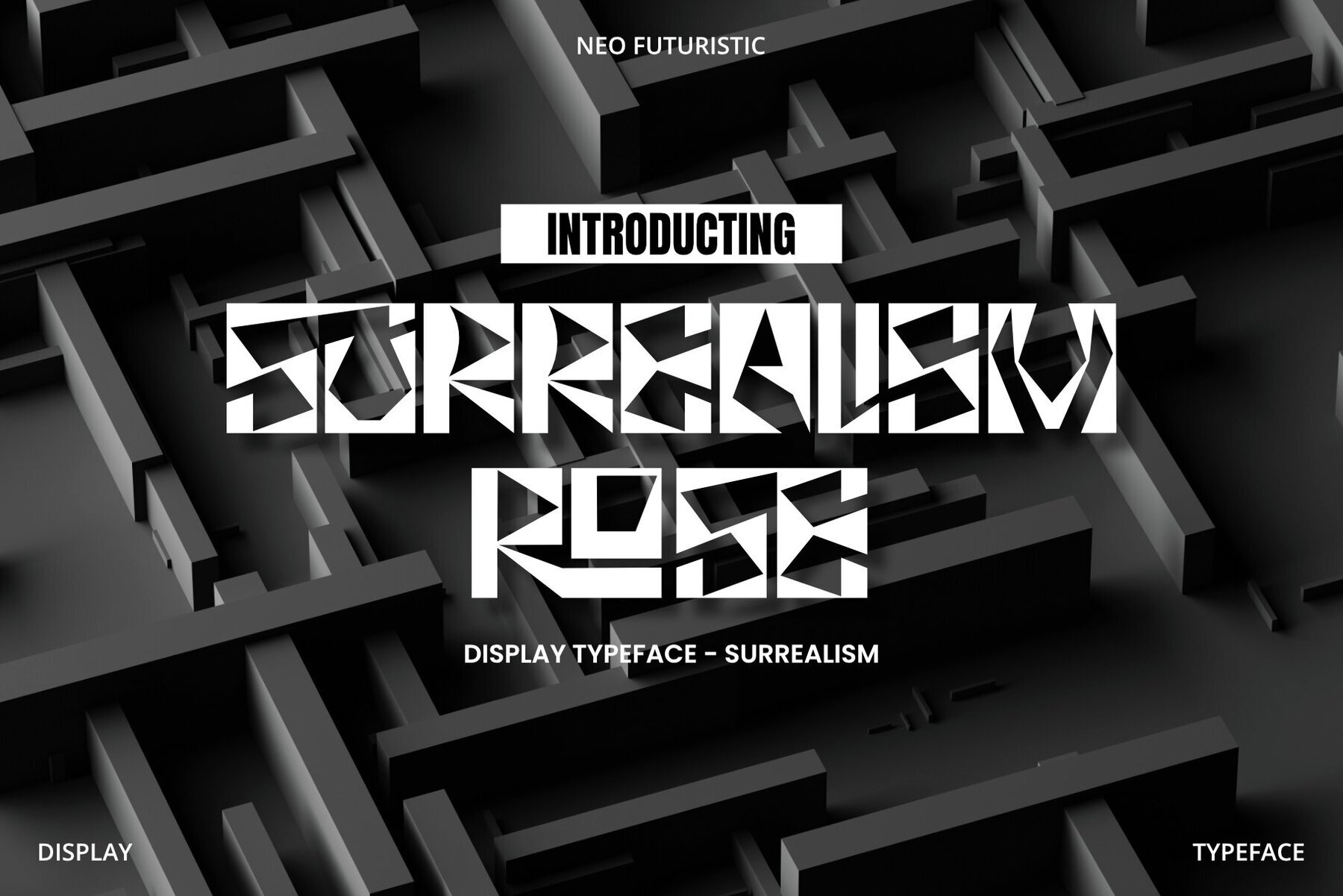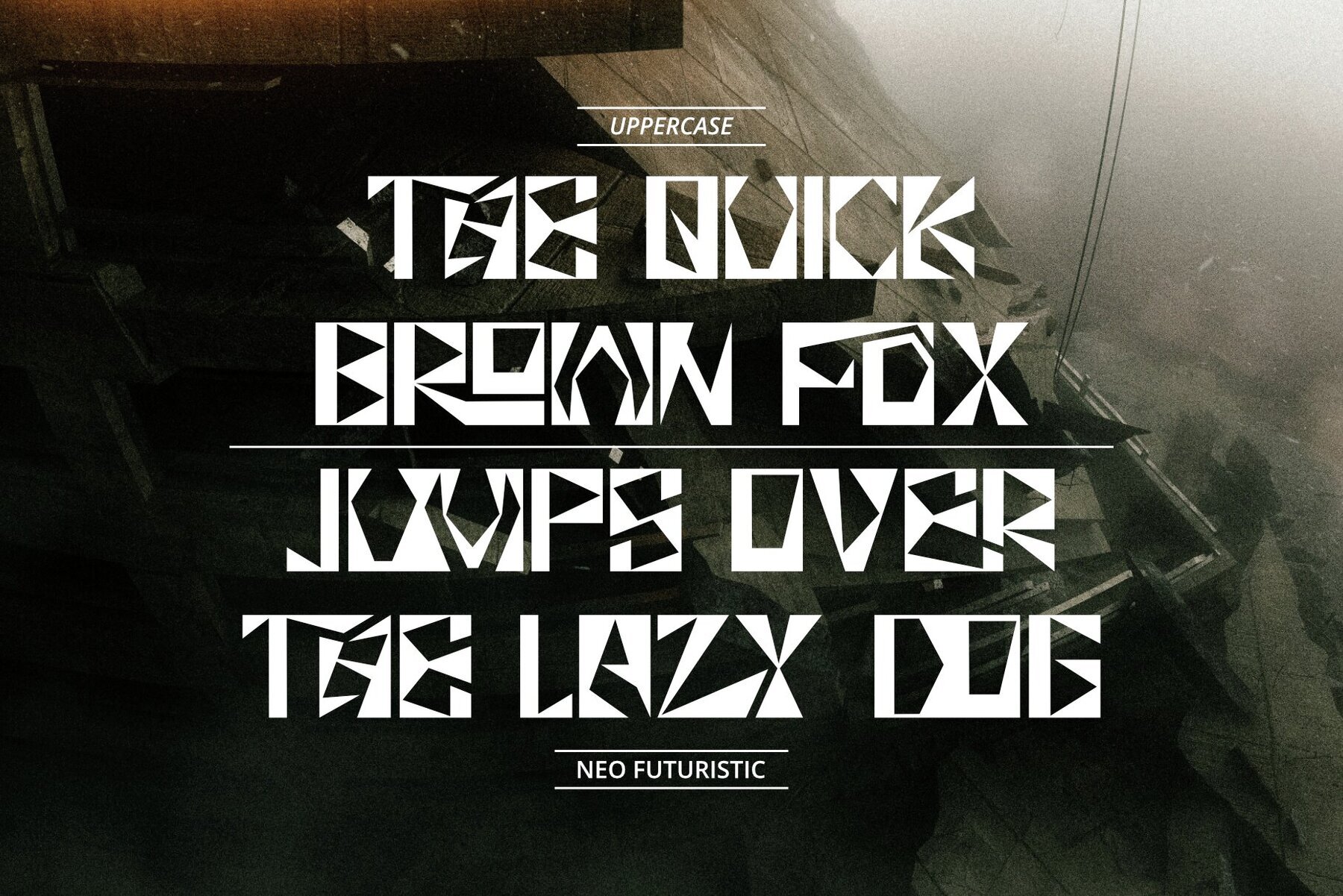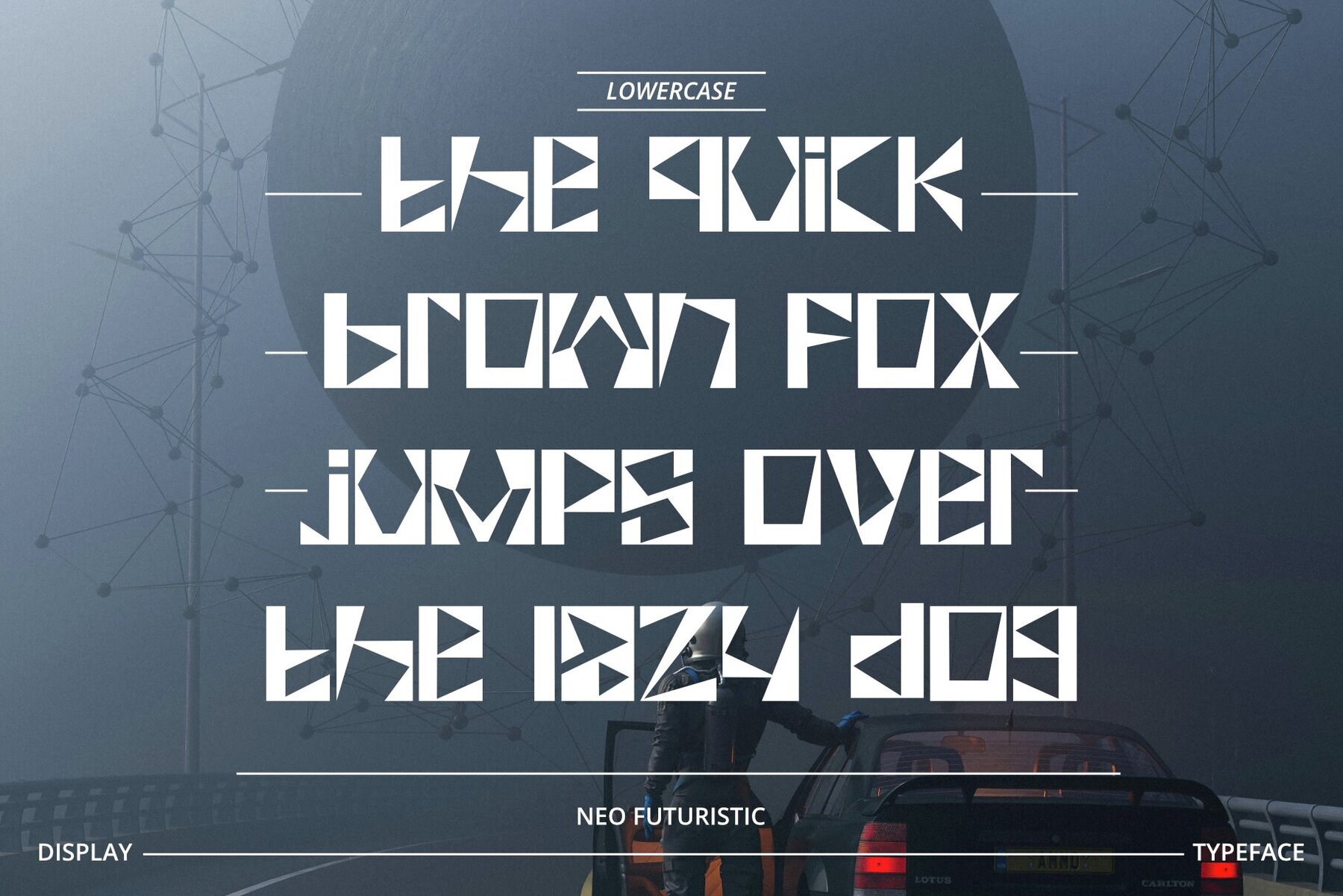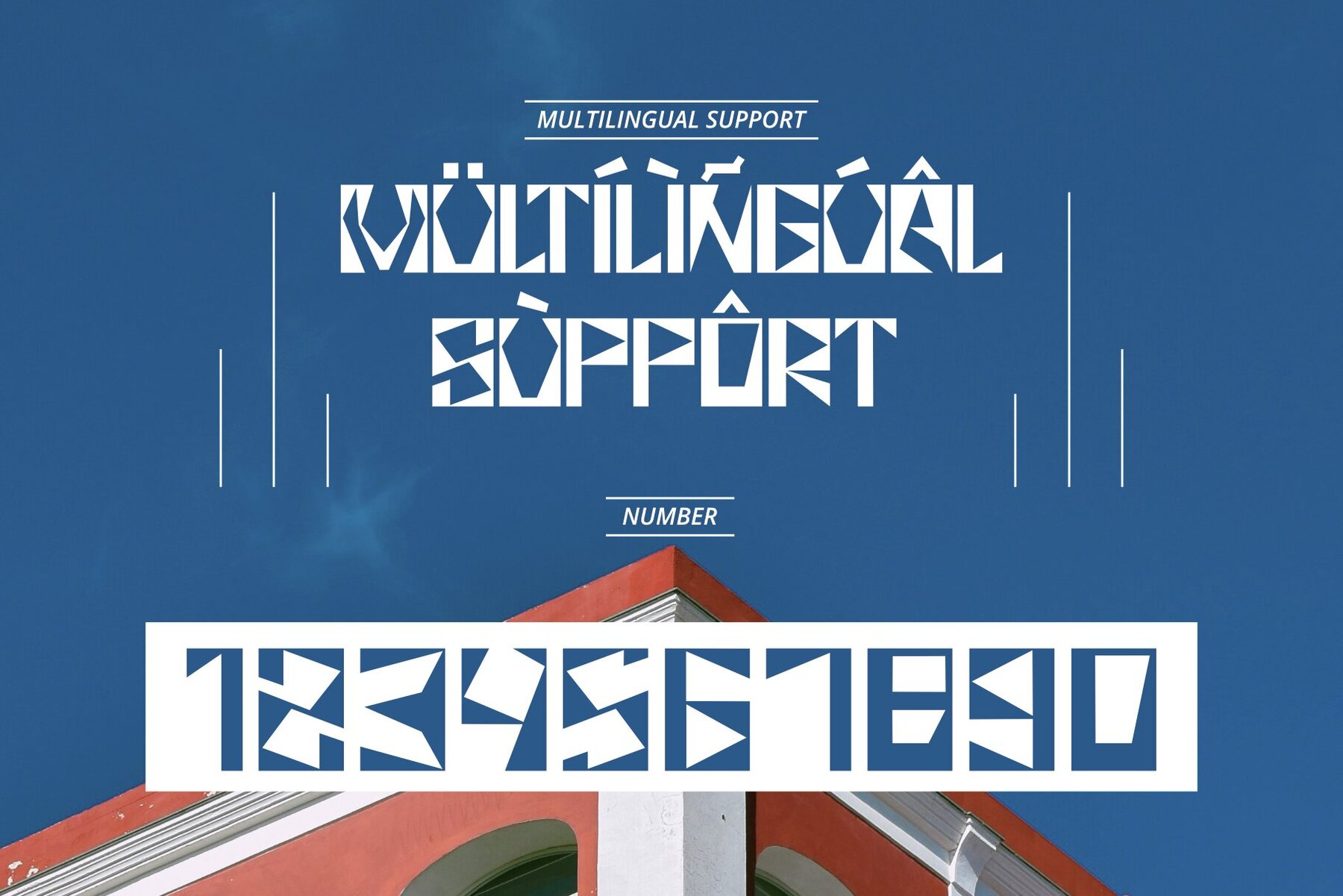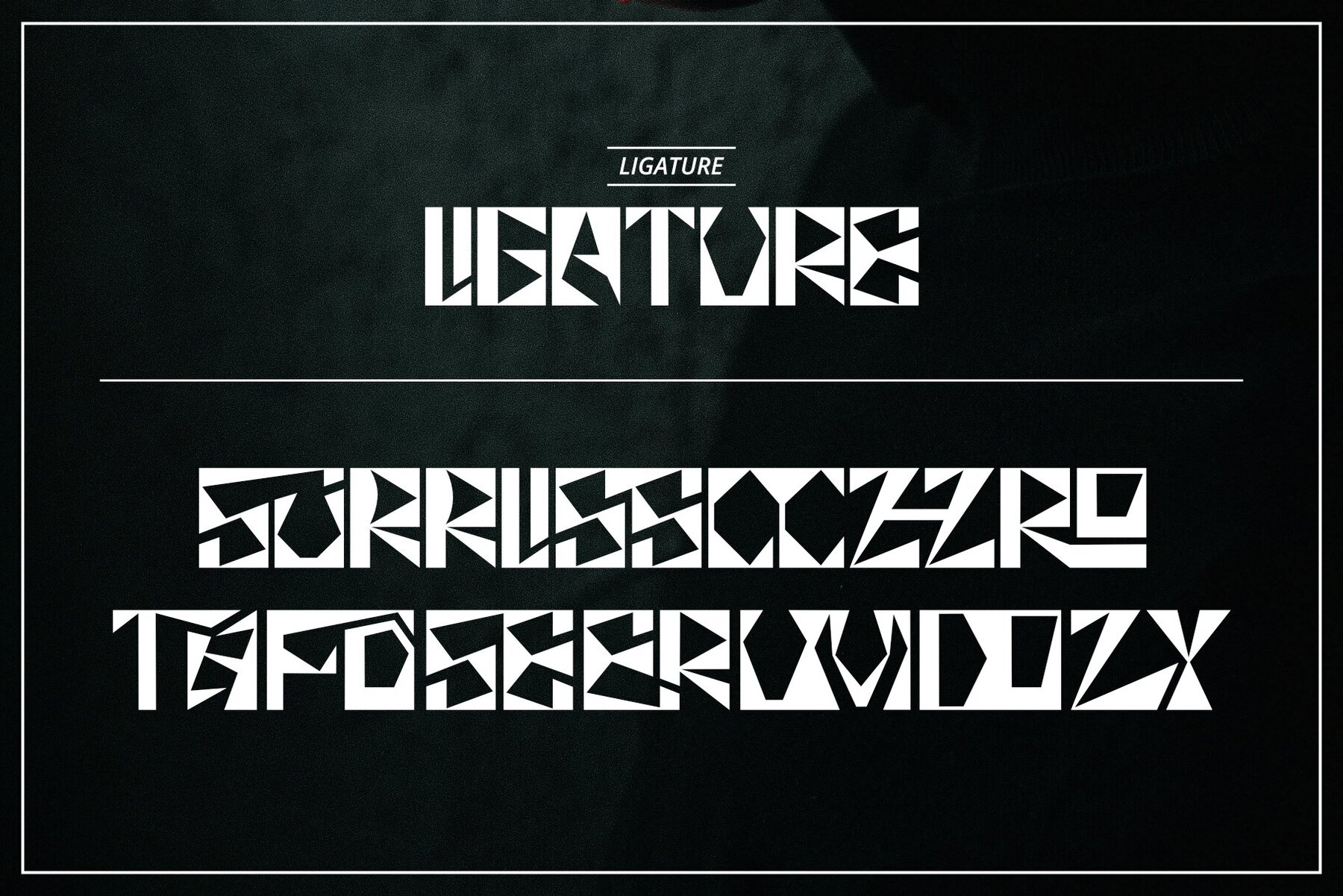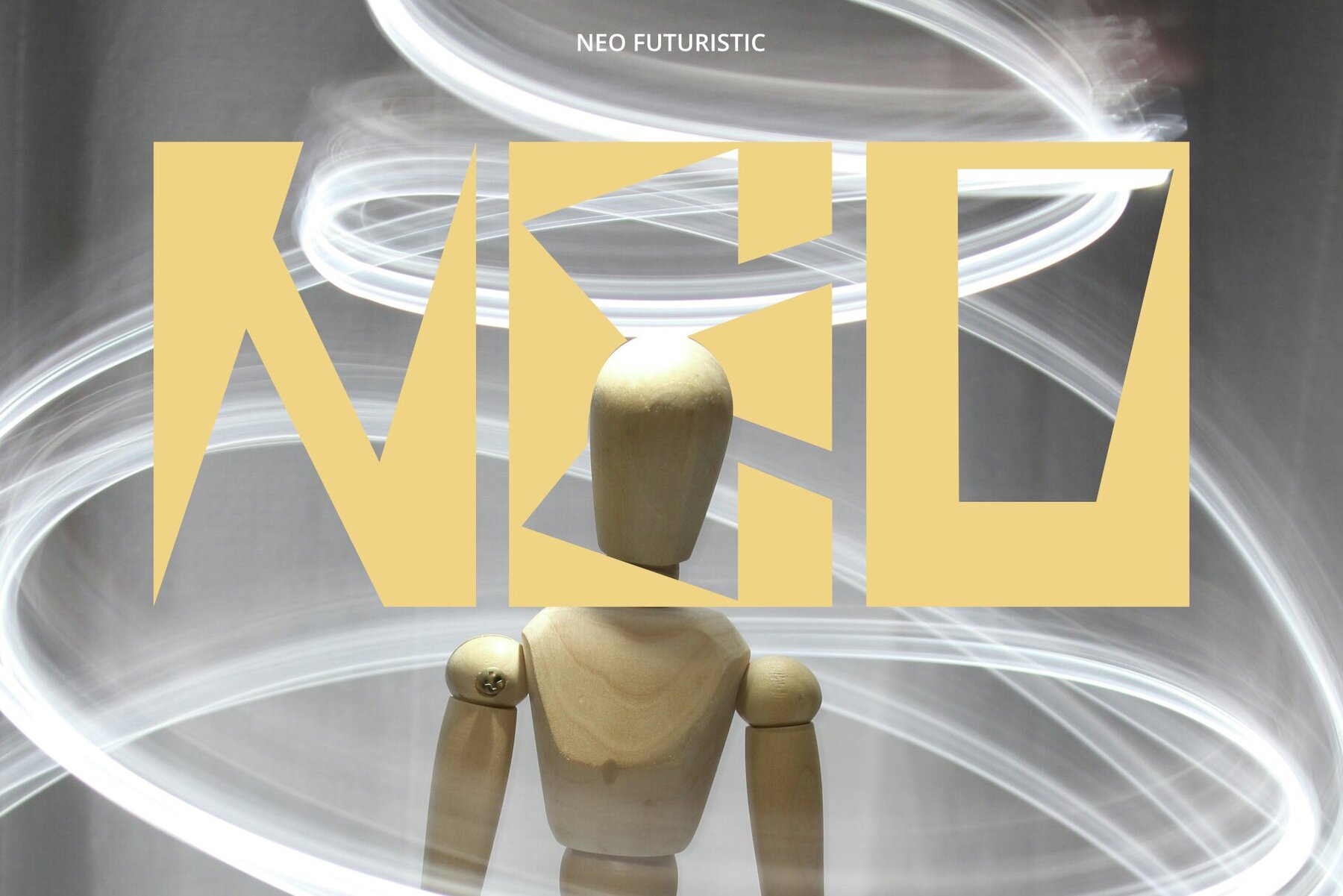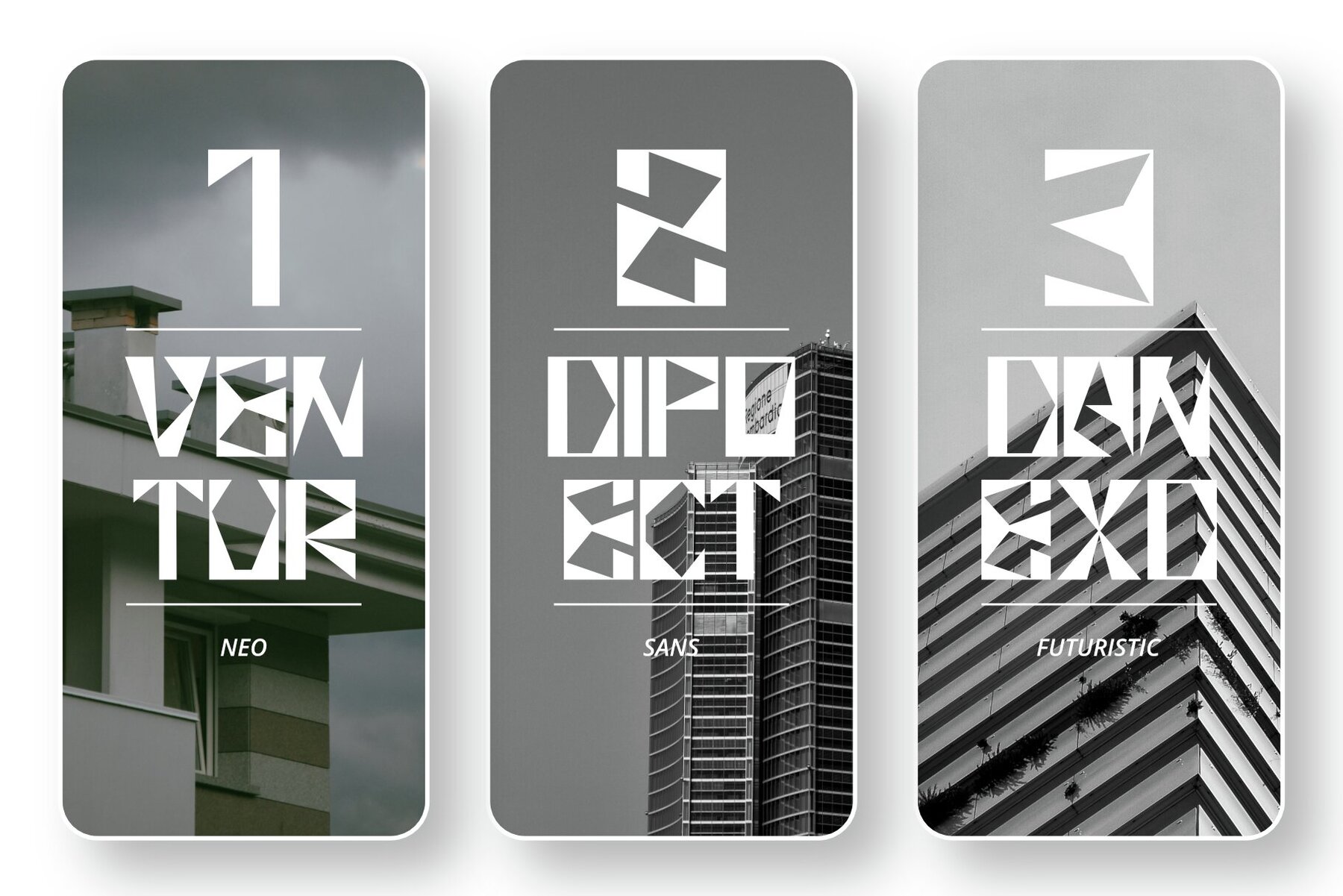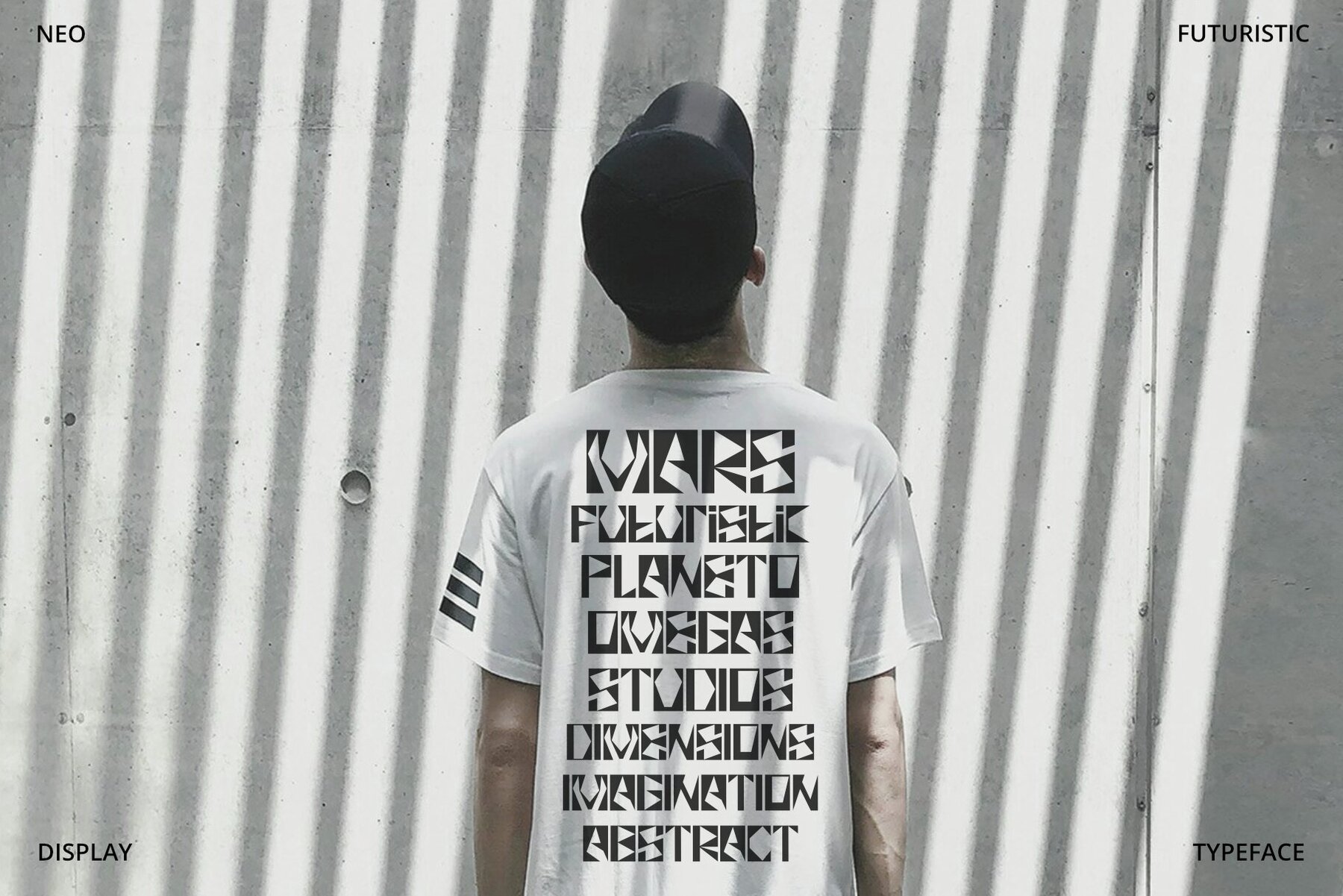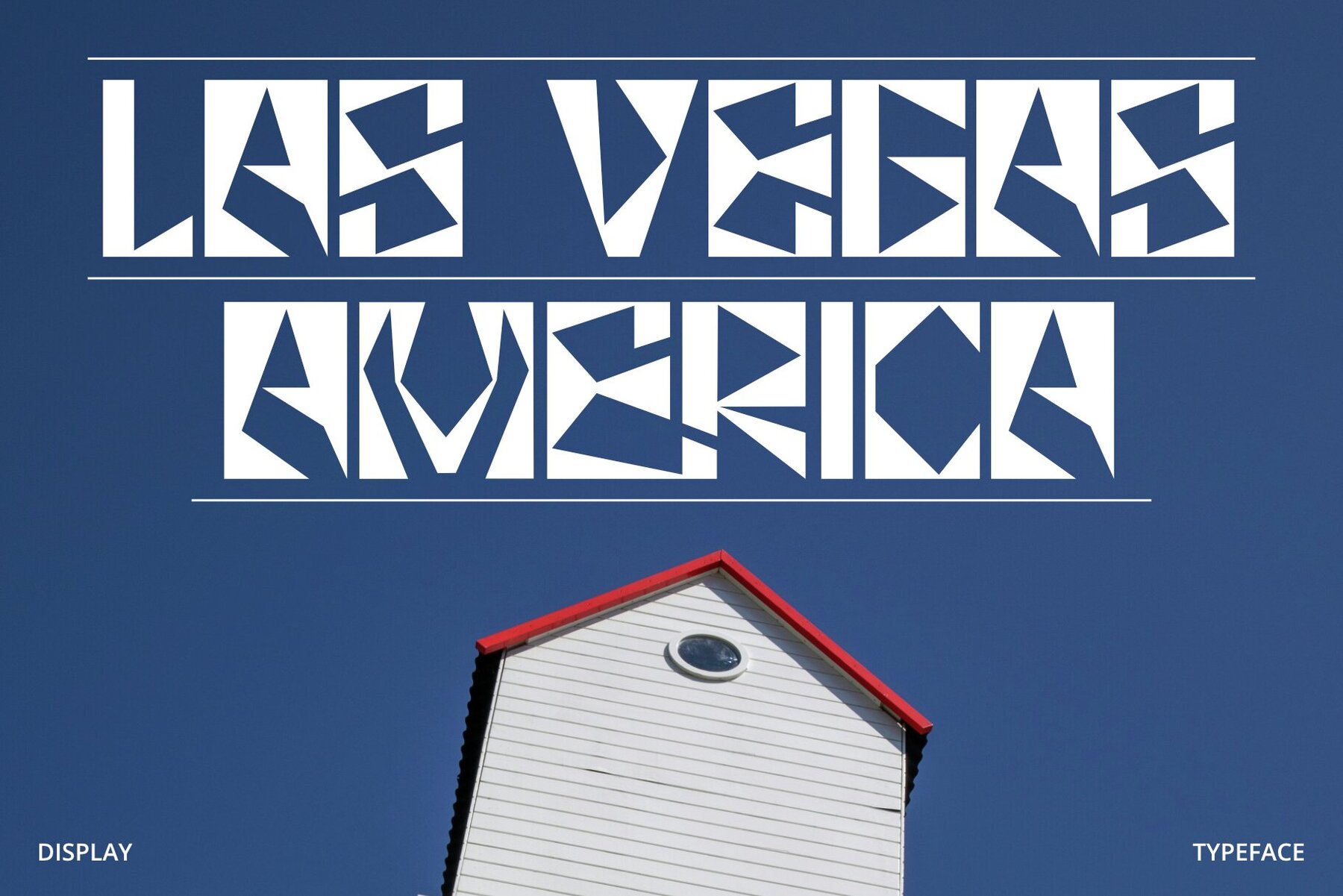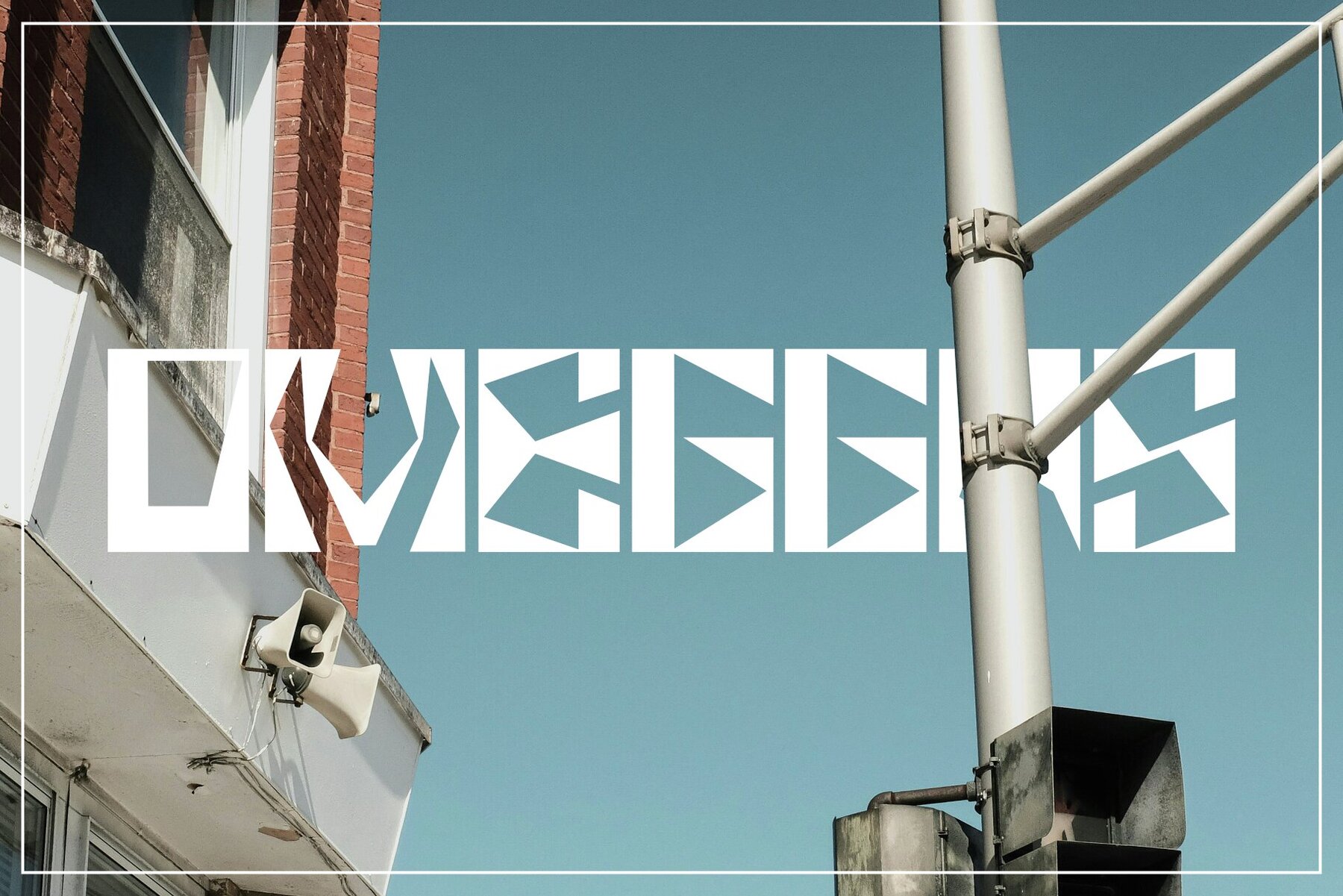
Surrealism Rose Font
Surrealism Rose Regular
Surrealism Rose stands out as a unique and striking typeface, drawing inspiration from Neo-Surrealism. With its bold character and distinctive design, this font effortlessly merges techno, sporty, and modern elements. It is an exceptional choice for those looking to push creative boundaries. Surrealism Rose adds an edgy, futuristic flair to any layout, making it a must-have for high-impact projects.Surrealism Rose: A Bold Typeface Inspired by Neo-Surrealism
Perfect for Creative Projects